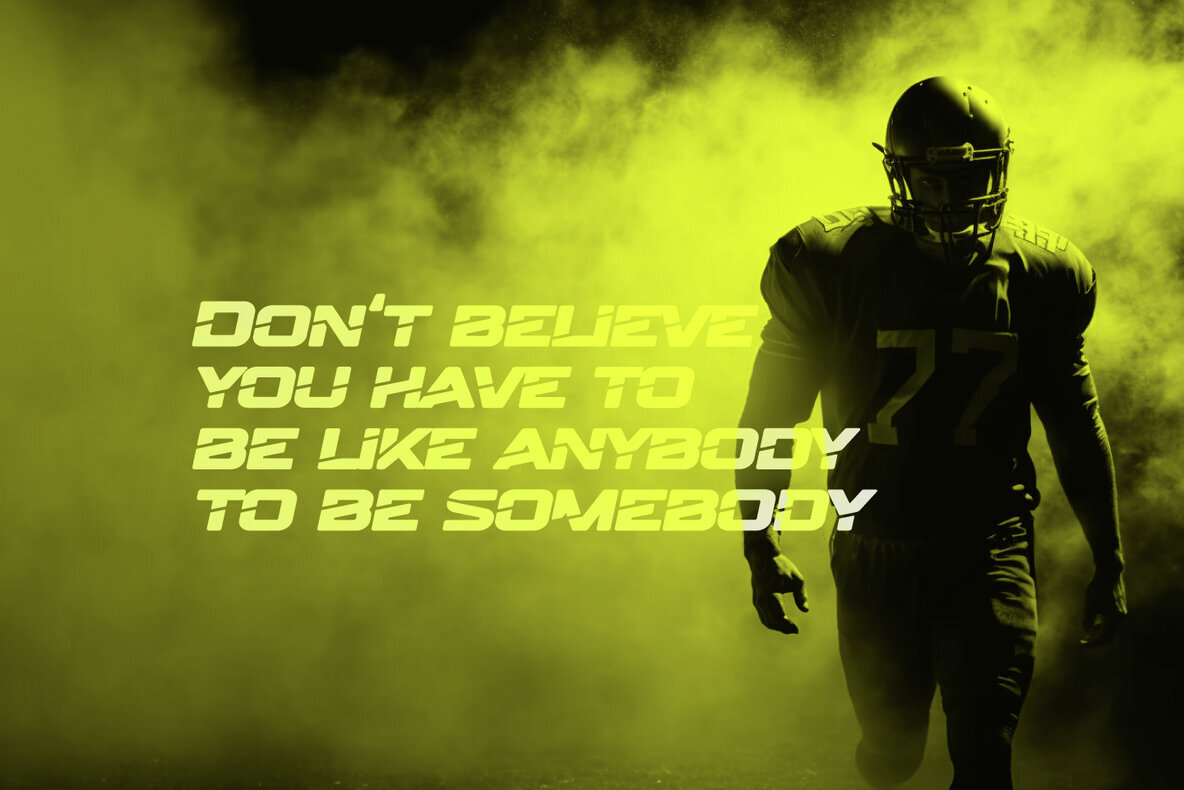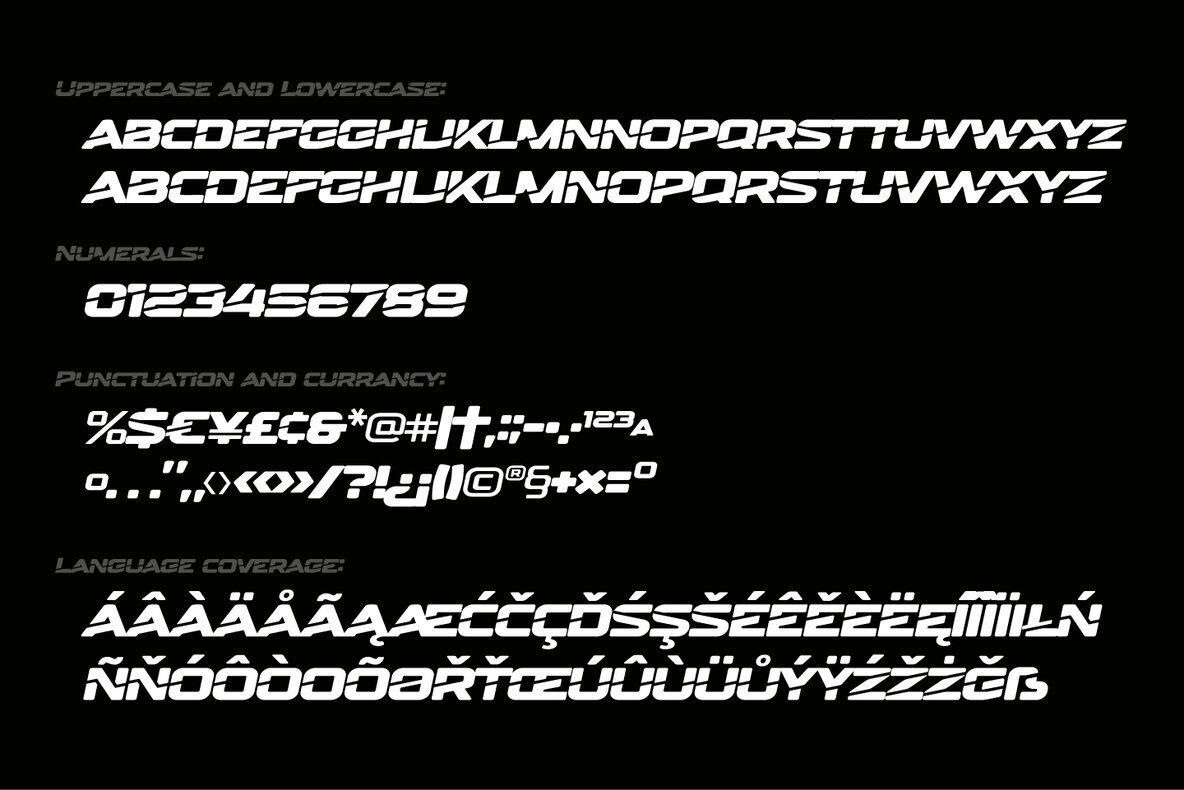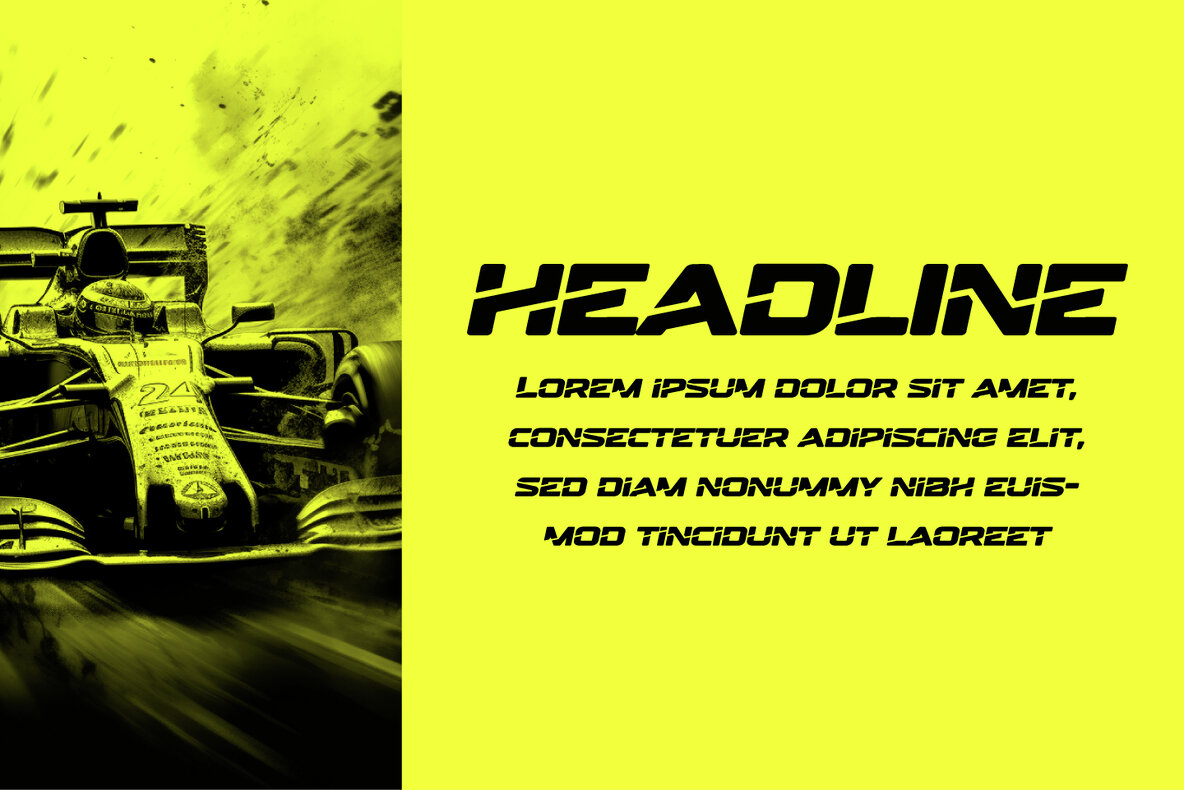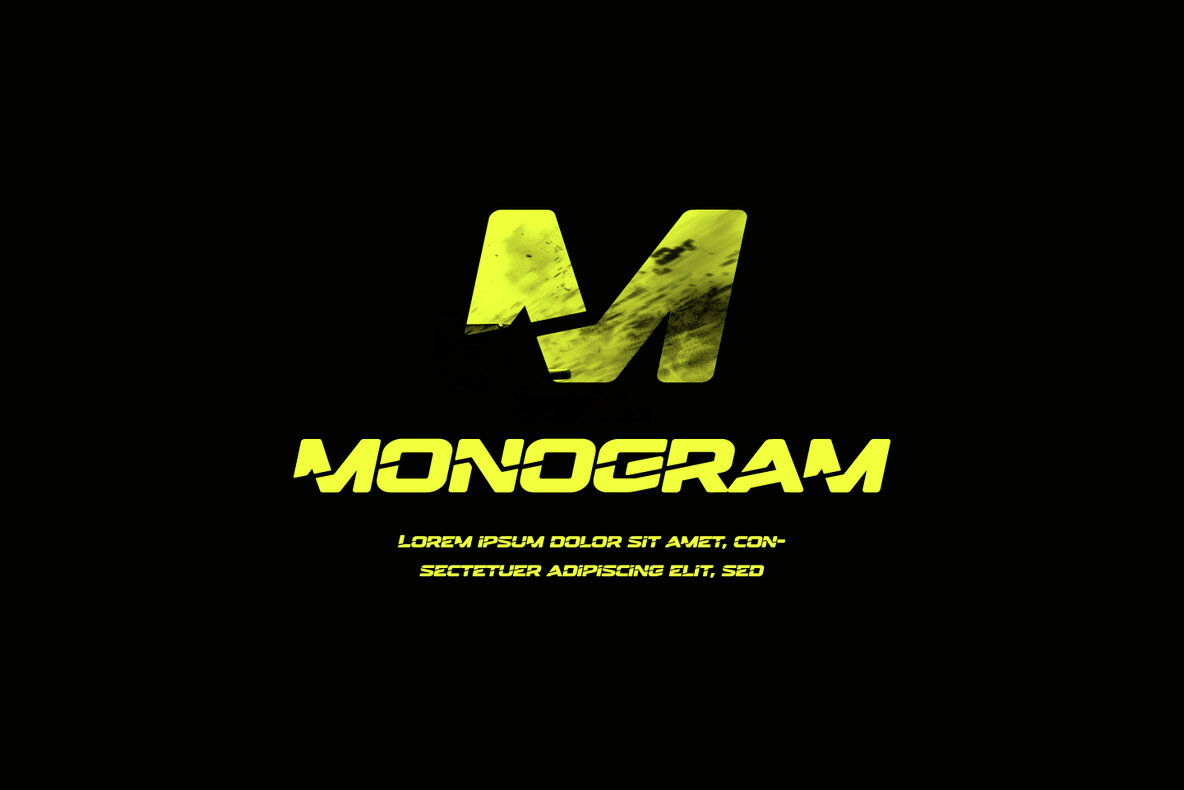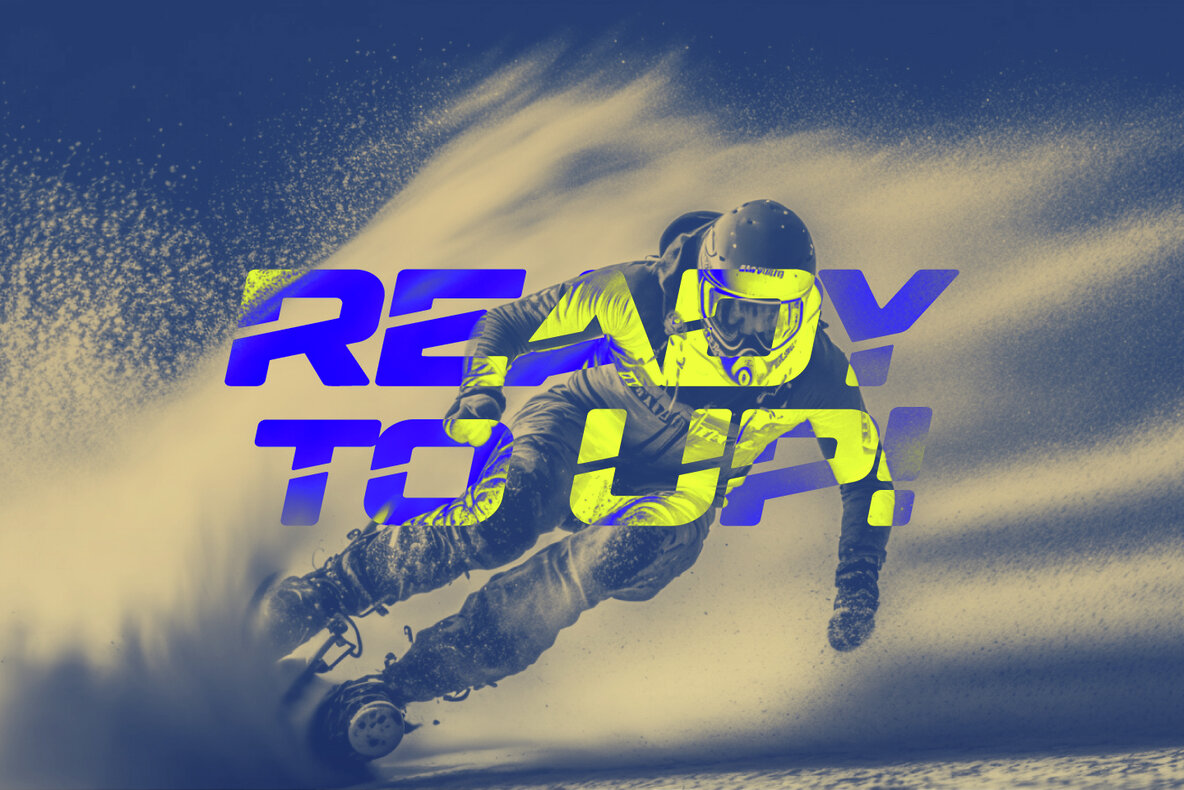
Unleash the Power of Motion and Speed with the ApexPro – a dynamic, sporty font designed for those who crave action, speed, and innovation. This typeface is meticulously crafted to embody the essence of the automotive world, fitness, and cutting-edge technology. Key Features: Target Audience: The ApexPro is tailored for individuals who appreciate the fusion of technology, speed, and style. The target audience includes: Why the ApexPro font? File Inclusions: Fuel your creativity with the ApexPro – the font that doesn't just communicate, but accelerates your message. Download now for an experience that goes beyond the ordinary.